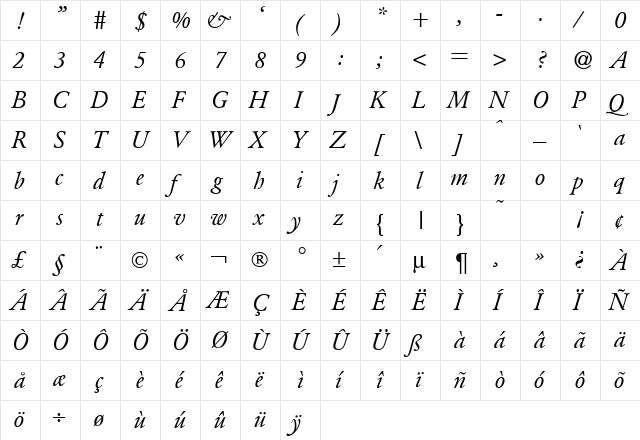
GarondDB Italic
Design Context for GarondDB Typeface
GarondDB offers clean, dependable letterforms without strong stylistic allegiance, making it a practical choice for designers who need flexibility. The slanted form adds forward momentum and visual energy.
Pro Tip: Try GarondDB for annotation and caption copy alongside an upright companion — the contrast in angle creates a dynamic but ordered typographic system.